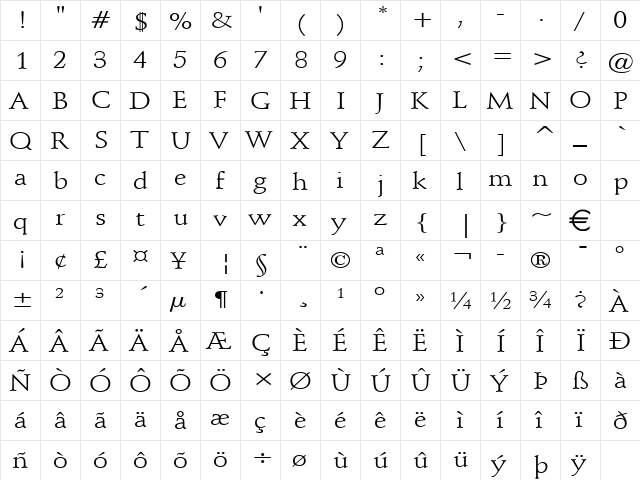
SchroederWide Normal
Design Context for SchroederWide Typeface
SchroederWide takes a measured approach to typography — its balanced proportions and neutral character make it a reliable workhorse for both digital and print work.